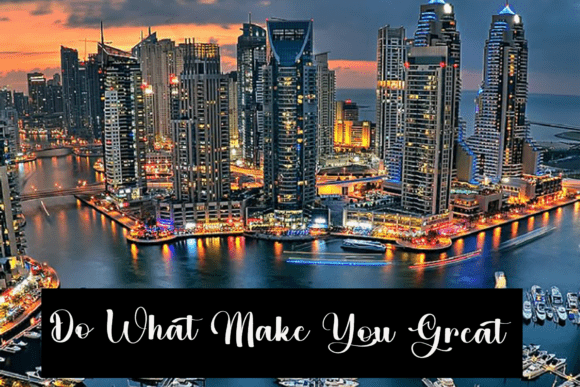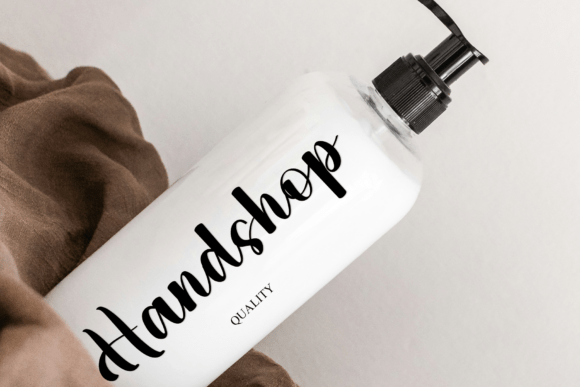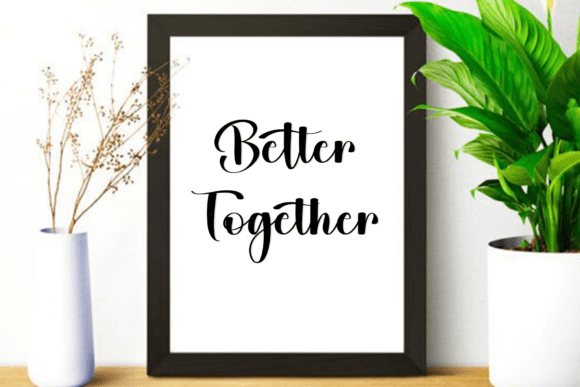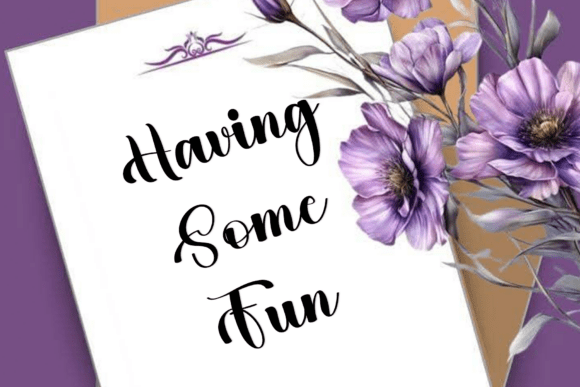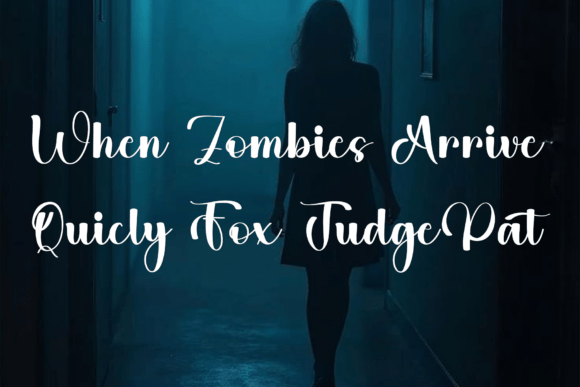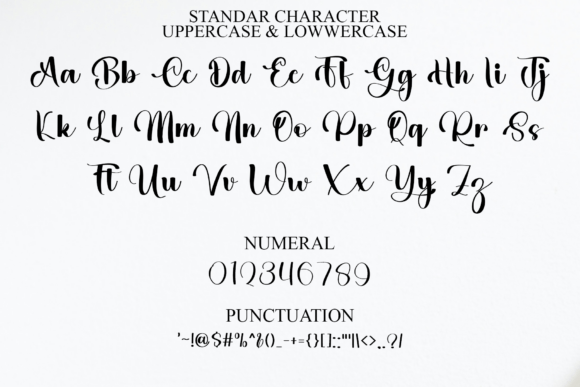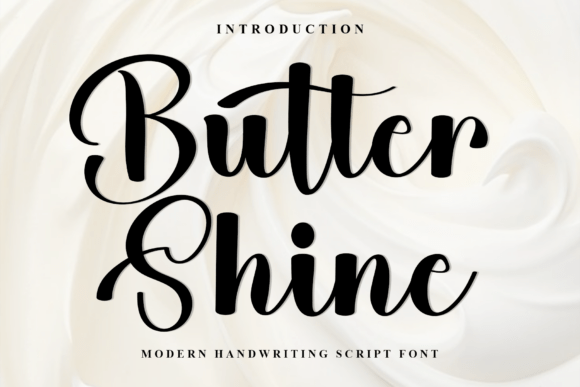
Unwrap the Magic of the Holiday Season with Butter Shine Font
As you sit by the fireplace, surrounded by twinkling lights and the warmth of loved ones, you can’t help but feel the magic of the holiday season. The sound of sleigh bells, the smell of freshly baked cookies, and the sight of beautifully wrapped gifts all come together to create a sense of wonder and enchantment. And what better way to capture this feeling than with the perfect font?
Enter the Butter Shine Font, a festive and merry typeface that embodies the spirit of the holiday season. With its decorative elements and whimsical flair, this font adds a touch of magic to your designs. Whether you’re creating greeting cards, gift tags, or holiday-themed projects, the Butter Shine Font brings a cheerful and nostalgic ambiance to your words.
Key Features of Butter Shine Font
- Unique Characteristics: The Butter Shine Font features a unique shine effect that gives it a distinctive and eye-catching appearance, making it ideal for use in designs that require a touch of elegance and sophistication.
Designer Review: Butter Shine Font
I recently had the chance to work with the Butter Shine Font, and I have to say it’s a unique and intriguing addition to any design project.
- Playful yet Polished**: The Butter Shine Font has a fun, energetic vibe that can add a touch of whimsy to any design.
- Legibility**: Despite its creative flair, the font remains easy to read and understand, making it suitable for a wide range of applications.
- Customization**: The font offers various weights and styles, allowing designers to mix and match to achieve the desired look and feel.
- Limited Versatility**: While the font is great for playful designs, it may not be the best choice for more formal or professional projects.
- Overuse**: The font’s unique characteristics can quickly become overused, leading to a lack of visual interest and a tired design.
Overall, the Butter Shine Font is a solid choice for designers looking to add a bit of personality to their work. While it may not be suitable for every project, it’s a great option for those looking to create something fun and engaging. With proper use and restraint, this font can add a touch of magic to any design.
Getting the Most Out of the Font
To get the most out of the Butter Shine font, use it for:
- Casual or informal designs.
- Food or beverage branding.
- Travel or hospitality branding.
The Butter Shine font is commonly used for:
- Restaurant menus.
- Food truck branding.
- Travel brochures.
Alternatives to Butter Shine Font
Compared to Butter Shine Font, Great Vibes Font has a more refined and polished look, making it suitable for formal occasions. While Butter Shine Font has a more playful and whimsical feel, Great Vibes Font is more subdued and elegant.
Compared to Butter Shine Font, Alegreya Font is more formal and traditional, making it suitable for use in business reports, academic papers, and other professional documents. While Butter Shine Font is more playful and attention-grabbing, Alegreya Font is more understated and professional.